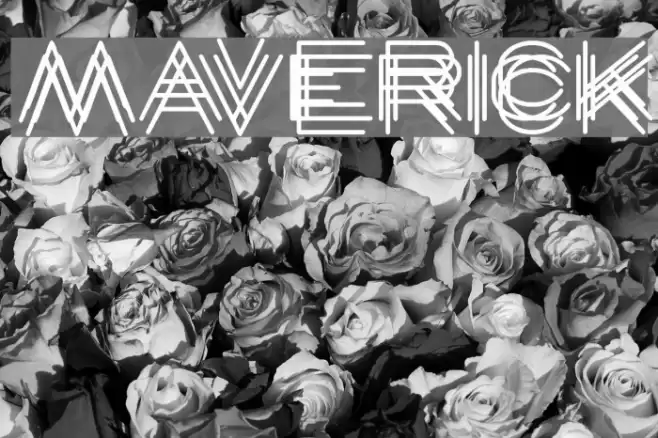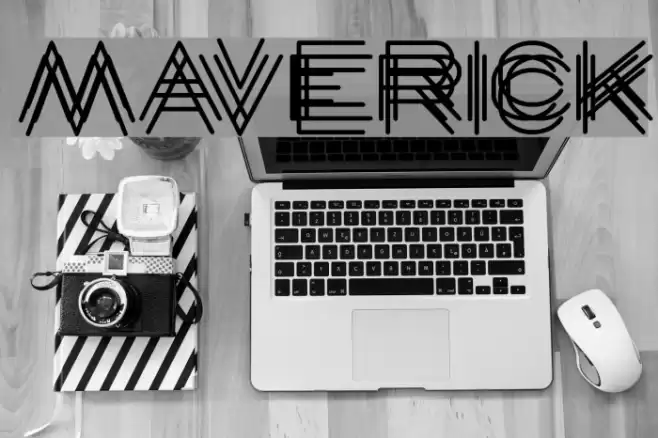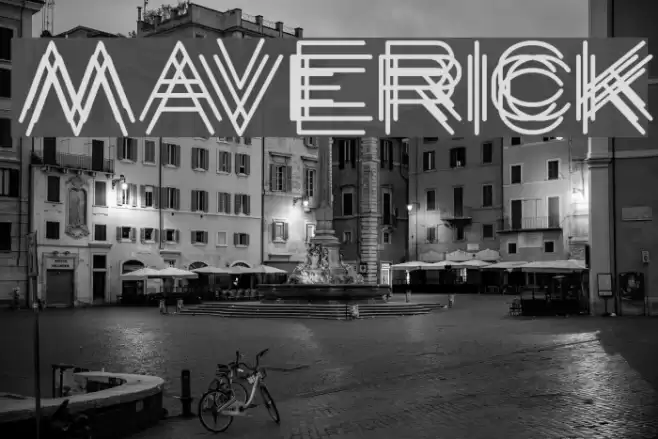
MAVERICK Font
MAVERICK Description
This font features a unique, decorative style characterized by multiple horizontal lines intersecting each letterform, creating a layered and textured appearance. The uppercase letters are bold and striking, with a geometric structure that emphasizes symmetry and balance. The design is modern and artistic, making it stand out in any visual context. The font's intricate detailing suggests a sense of movement and dynamism, ideal for creative projects that require a bold statement. Its distinctiveness makes it suitable for eye-catching headlines or branding materials.
A decorative, modern font with layered, intersecting lines creating a textured look from Uncategorized fonts.